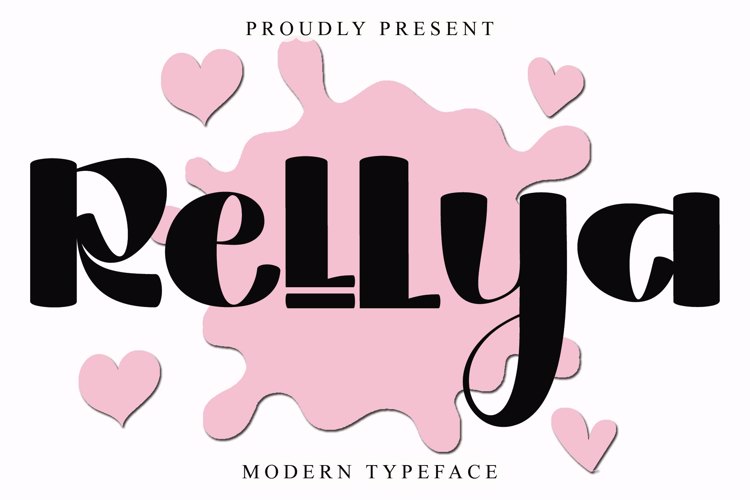
Rellya - Font
Rellya is a bold and beautiful font from Arkrist Letter Studio. Very elegant and beautiful font with heart shape.
Rellya is made with so much care that it creates a very romantic and love-filled font.
Rellya is perfect for invitations, greeting cards, posters, logo fonts, etc.
Let's spend the day full of love with Rellya Font!